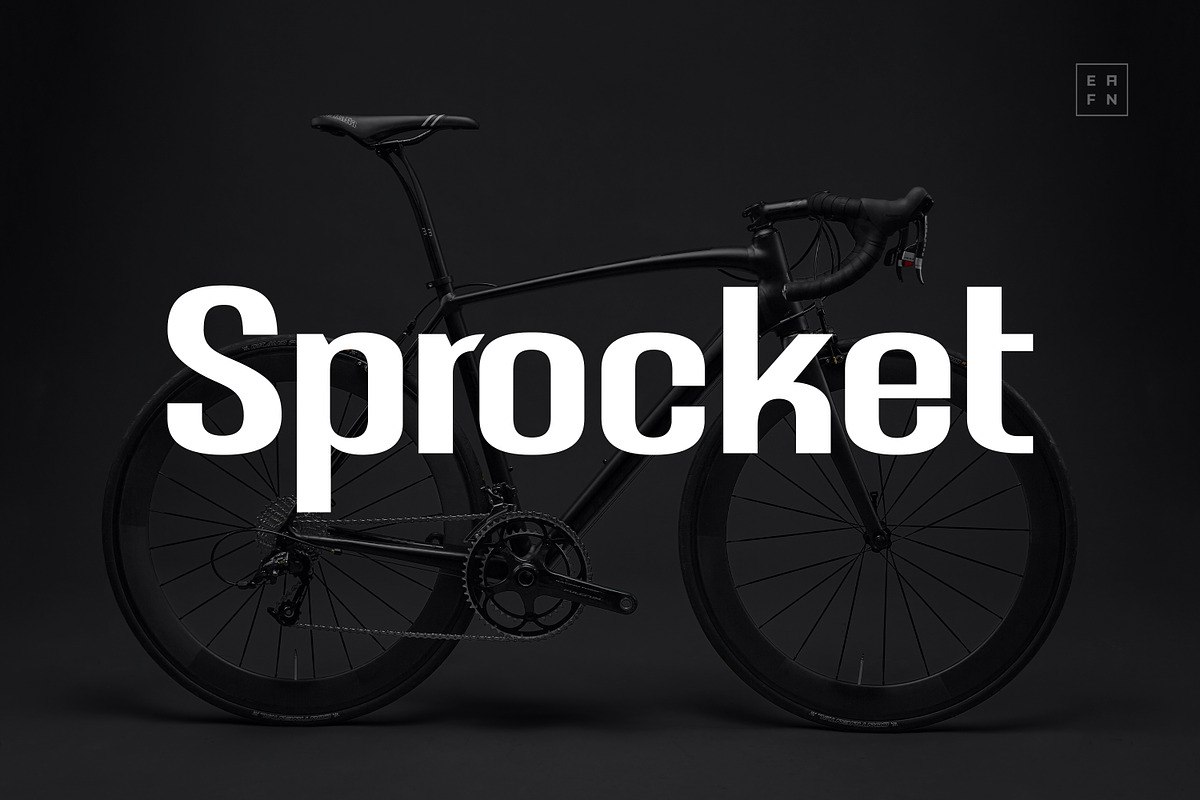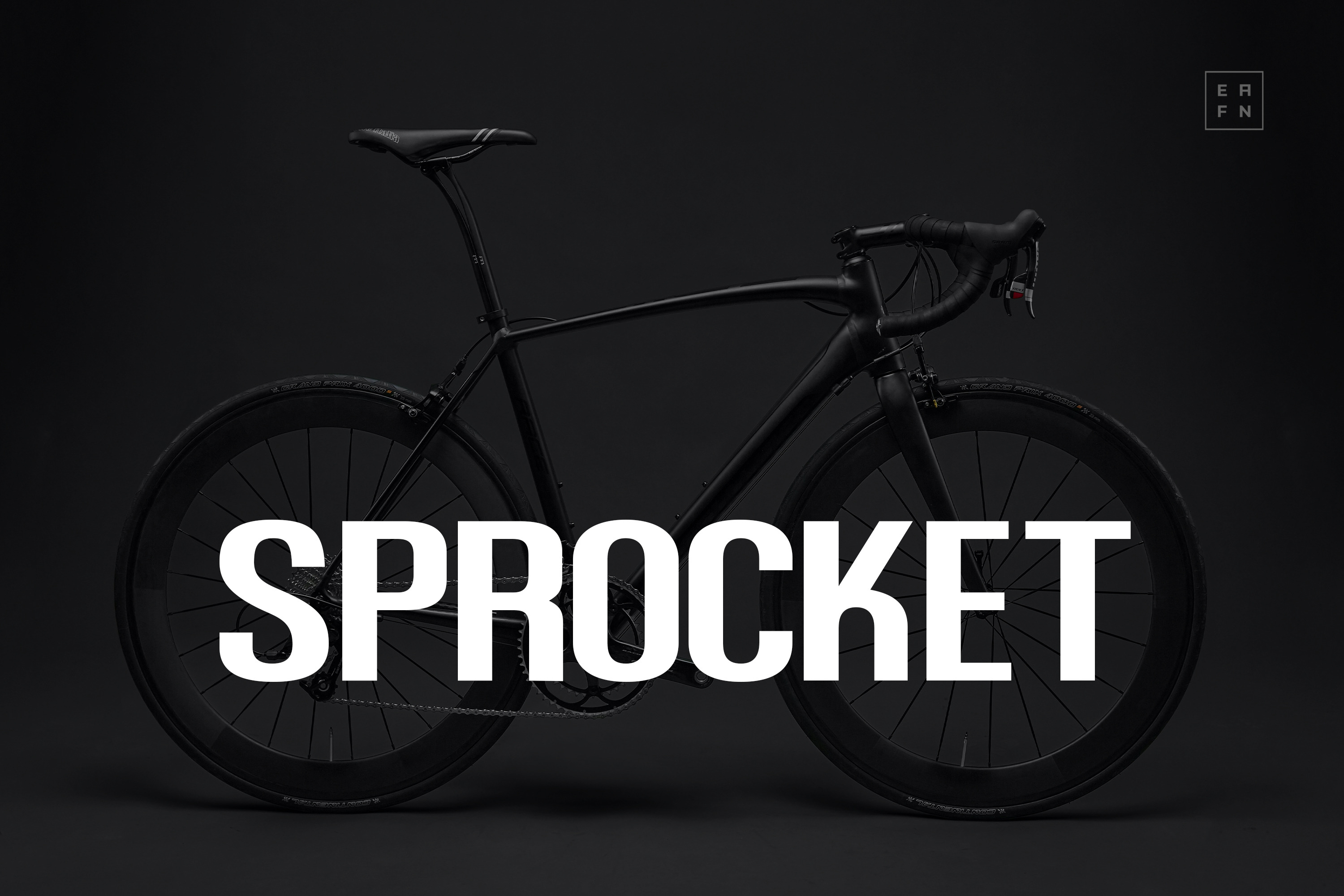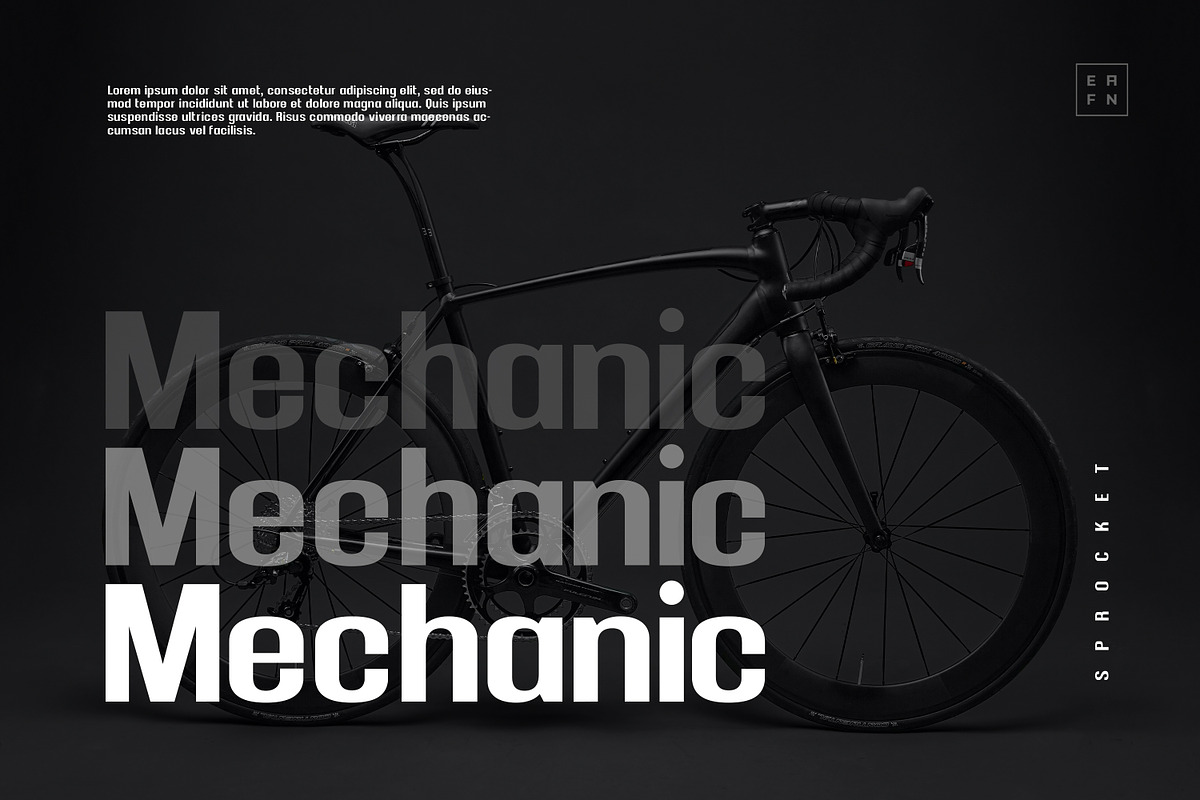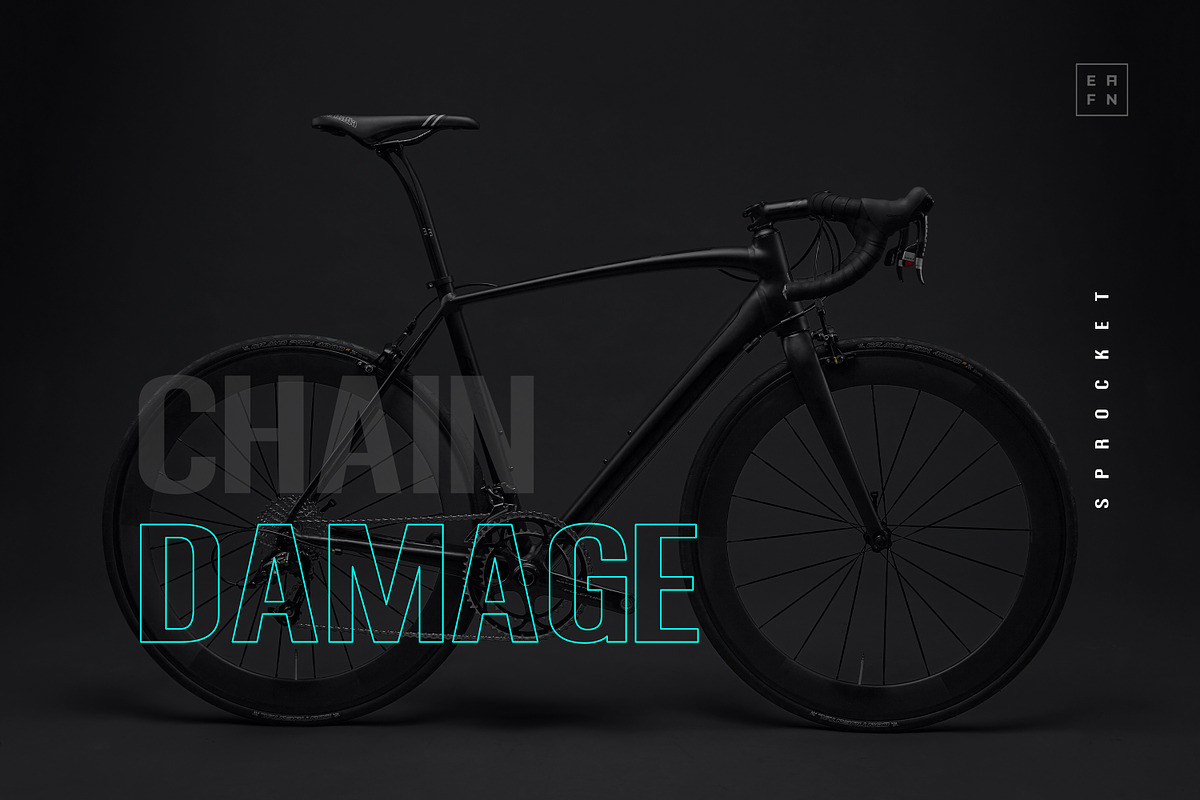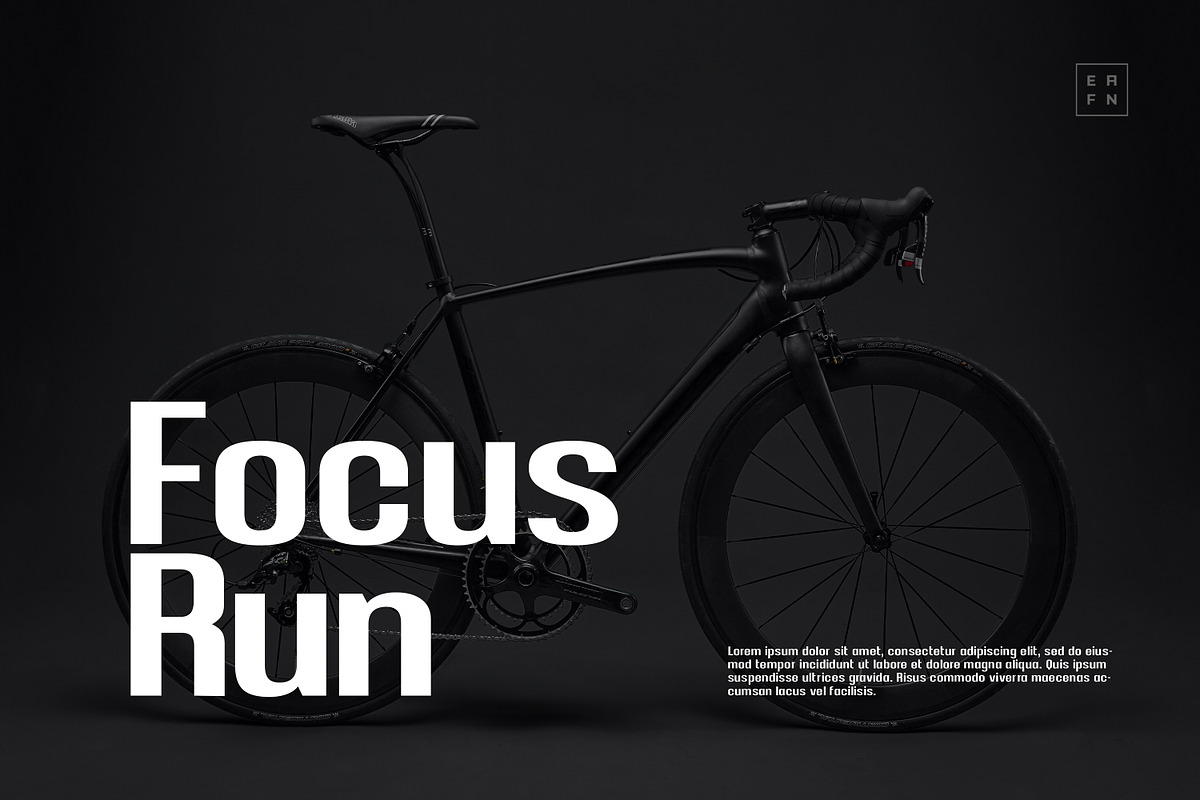
Sprocket Font
Sprocket is a cool, neat and bold display font. Whether you’re using it for crafting, digital designing, presentations or greeting cards making, it’s perfect! WOFF, WOFF2, TTF, OTF font types also included.